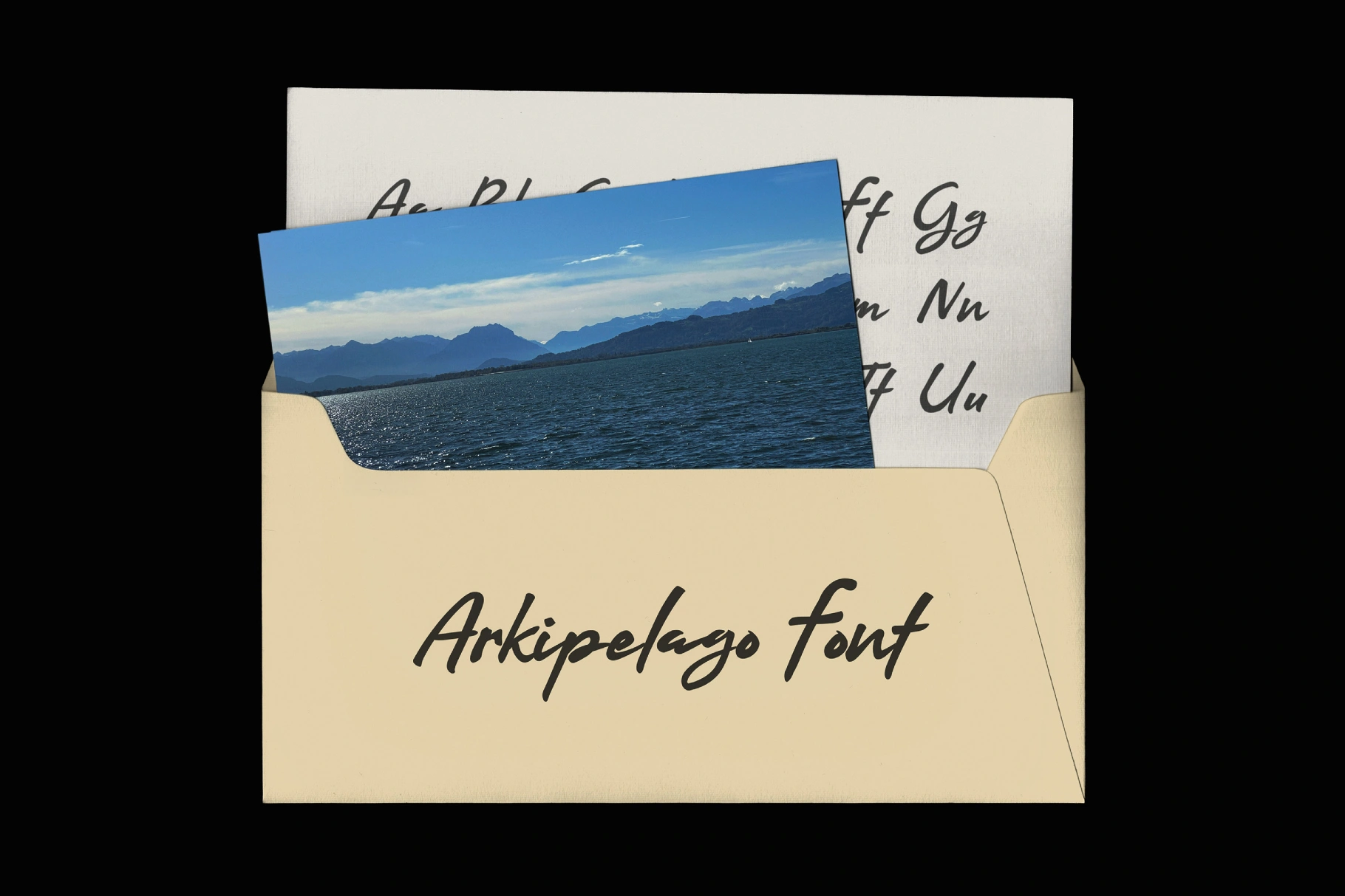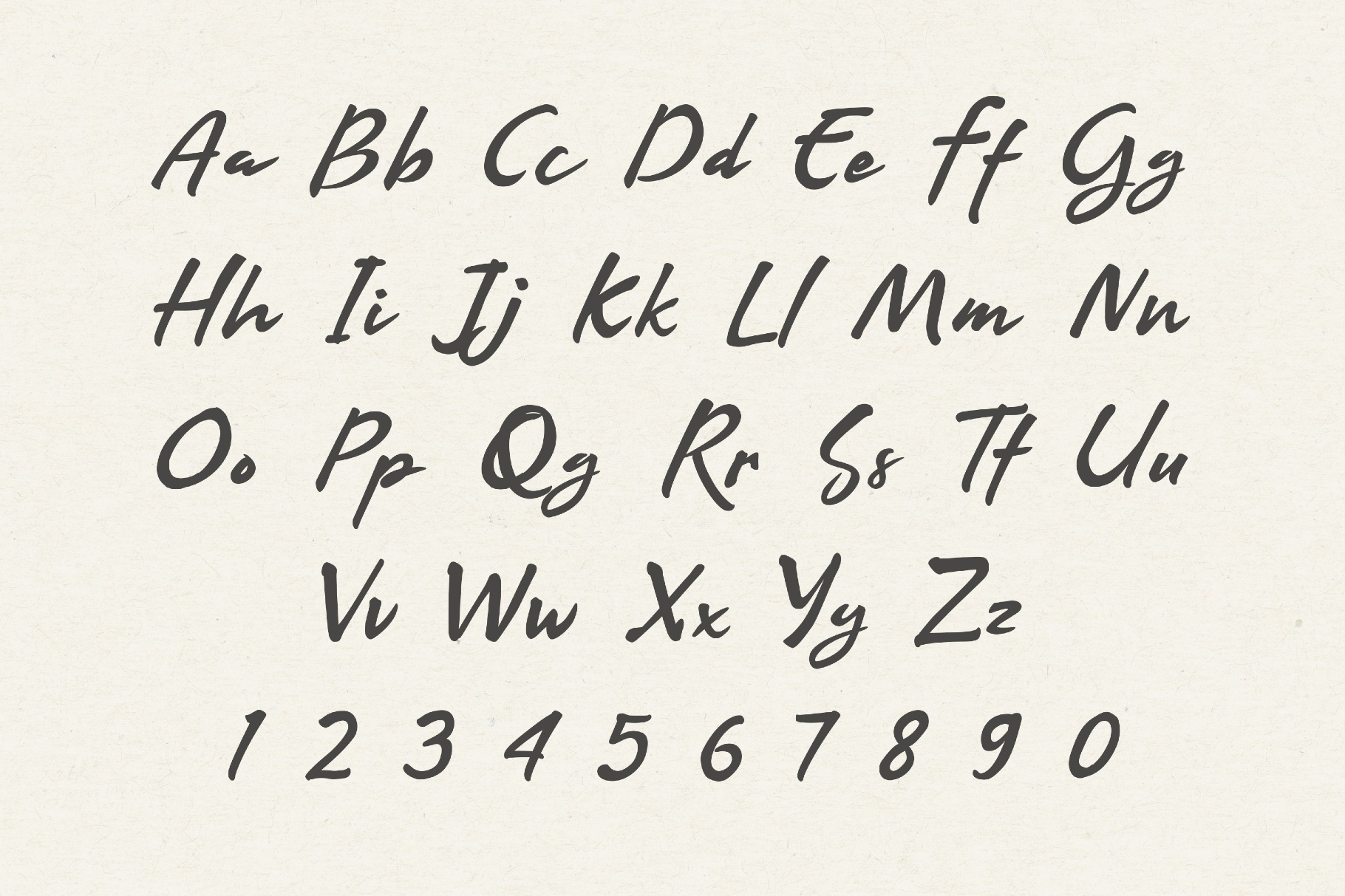
Arkipelago Signature Font
Arkipelago trails inky strokes across the line with an easy coastal rhythm that recalls handwritten postcards, surf-shop signage, and 1960s travel posters. The crisp, eccentric signature font with sharp wedges and rhythmic curves suits beach or café branding, packaging, wedding stationery, greeting cards, book titles, editorial spreads, album covers, social media signatures, and quote graphics.
• Uppercase and lowercase letters.
• Numbers, punctuation, and symbols.
• Multilingual support across an extended Latin script.
• Ligatures.